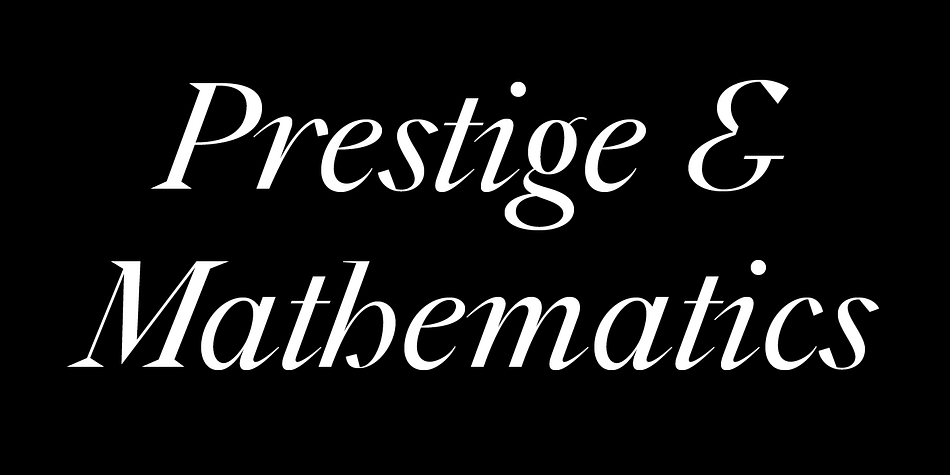
WT Solaire
Designed by Guillame Jean-Mairet, WT Solaire is a display serif and serif font family. This typeface has twenty styles and was published by Wraith Types.
Inspired by the classical “Fell Types”, especially the charmingly quirky weights designed by Peter De Walpergen. WT Solaire is a liberal interpretation of those cuts, meant for the digital age. Its design reflects an elegant tension between tradition and modernity.
Its elegance and sharpness make it a perfect fit for any project that requires impact and subtlety at the same time. It is especially meant for editorial design, be it magazines or books, but it also works well with images.